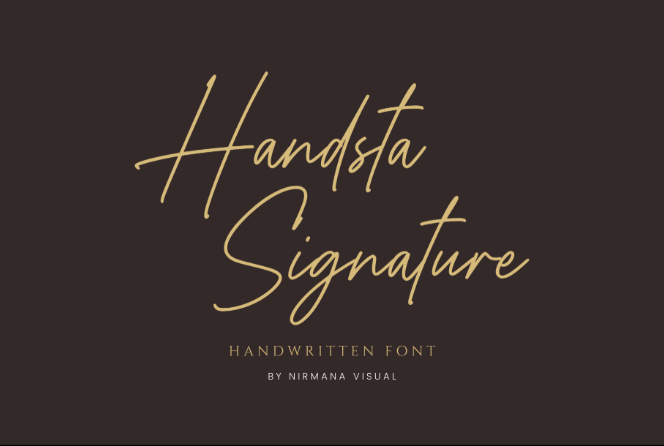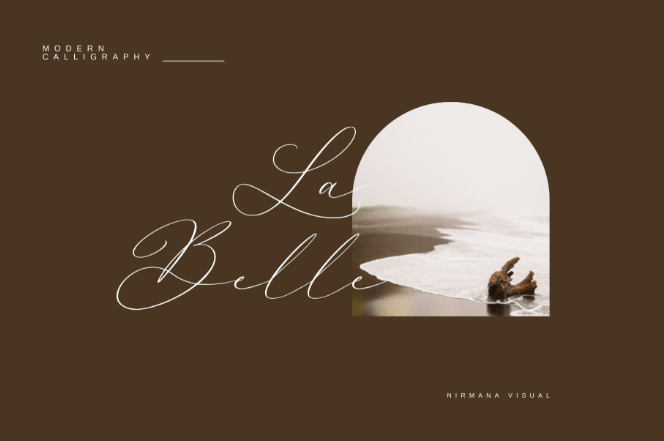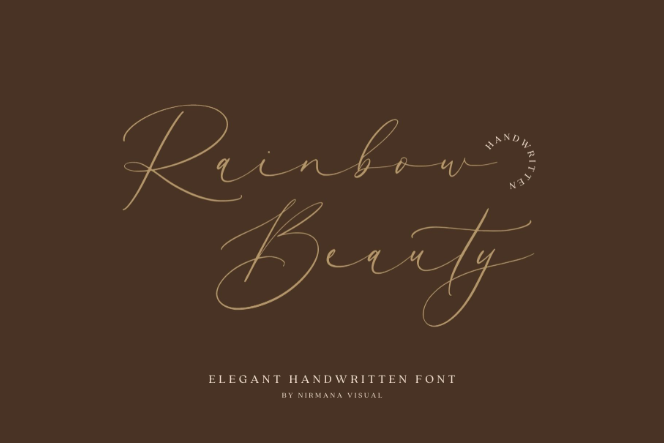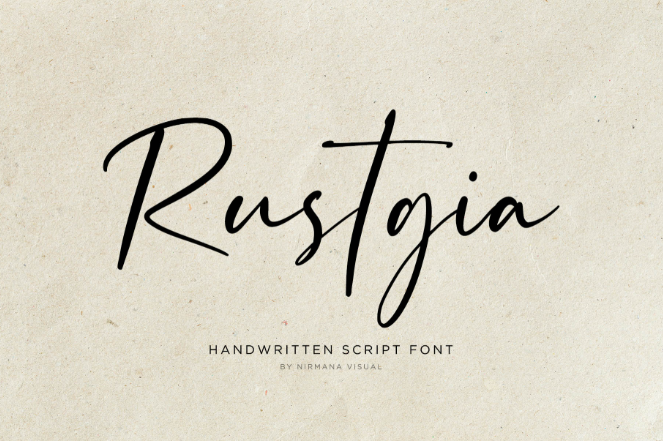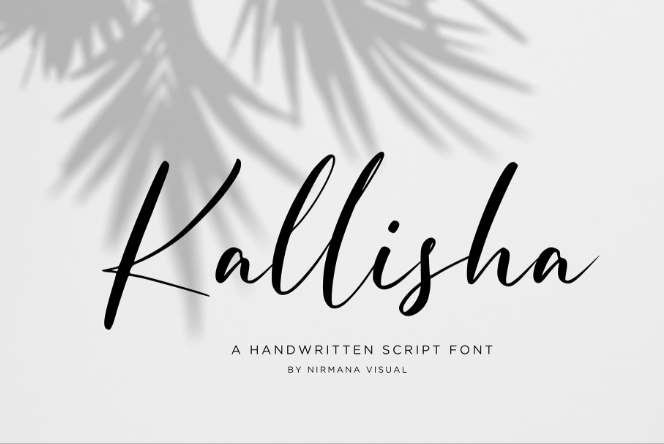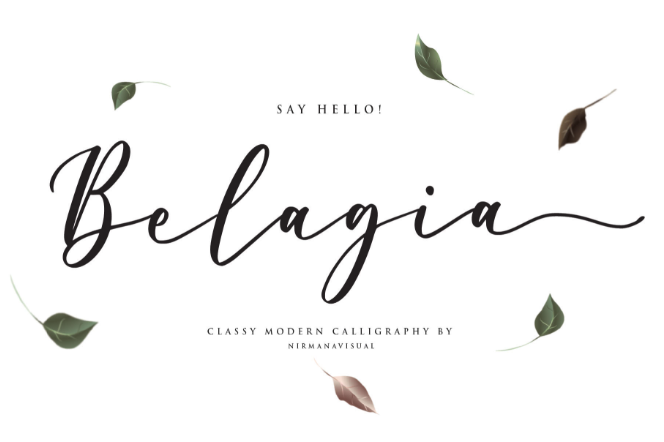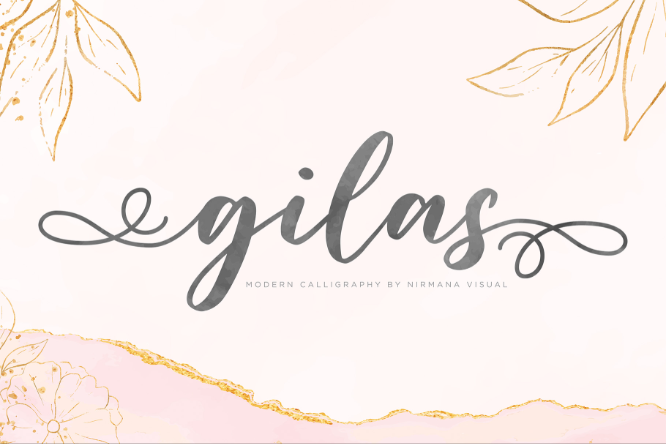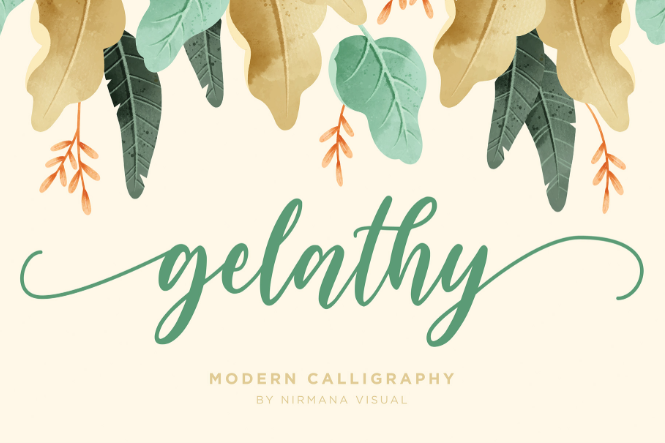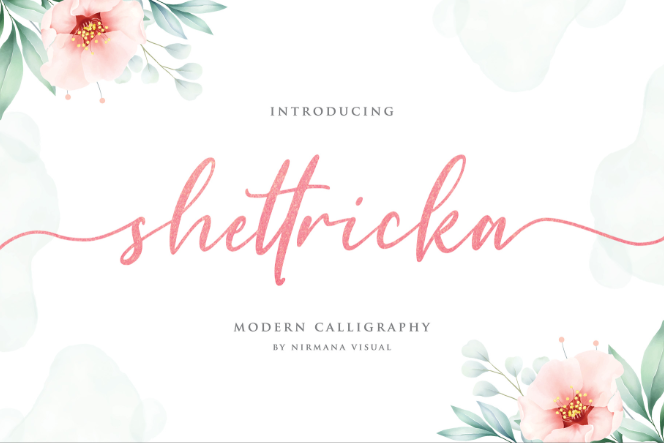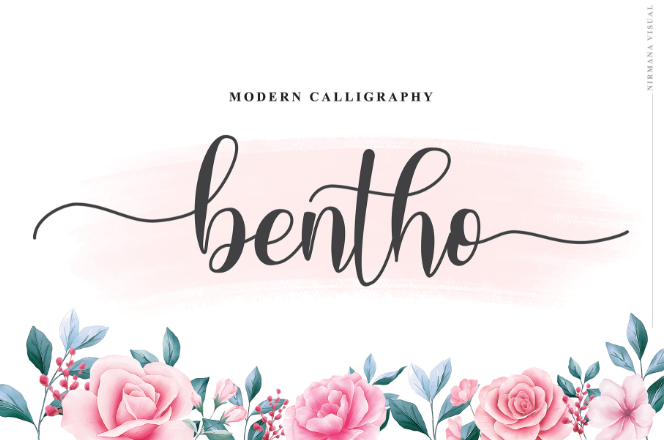
Top 25 Best Script Fonts Special for Wedding Projects
Best script fonts are essential tools for creatives who want to make an emotional impact with typography. Ideal for any occasion, especially for wedding vibes, these fonts allow you to convey warmth, sophistication, and elegance.
Best Script Fonts for Your Wedding Designs
Script fonts have their roots in the rich traditions of calligraphy and hand-lettering, adding timeless charm with contemporary aesthetics. Let’s find out the best of these flowy lines!
1. Retro Signature
The monoline, neon light aesthetics is a staple of quaint vibes, but Retro Signature elevates it with a more calming touch, particularly unique for your wedding endeavours.
2. Gettins
Gettins is among the best modern script fonts that accentuate the immaculate flow for wedding calligraphy. The dreamy and spacious letters from Gettins also highlight a wholesome atmosphere.
3. Beauty Handwriting
Beauty Handwriting excels in showcasing its precise, natural letterforms. In a wedding context, Beauty Handwriting also depicts luxurious visuals.
4. Gatkins
Among our best script fonts lineup, Gatkins exemplifies the elegant and serene aesthetics. Gatkins can highlight your overall design without being overwhelming.
5. Austrisa
If you want a stunning script typeface with the power to control its slant, use Austrisa. Austrisa cleverly blends modern calligraphy with artistic signature looks.
6. The Wedding Signature
As the name suggests, The Wedding Signature is the go-to font for wedding designs. The flavourful The Wedding Signature excels at beautifying your name.
7. Royal Wedding
Our best handwritten script fonts include Royal Wedding. The Royal Wedding font showcases the organic, handcrafted letterforms with an apparent marker look.
8. Smooth Loving
Smooth Loving displays the perfect combination of delicate typography and ornate swashes. Additionally, Smooth Loving’s look exudes a romantic and eternal style.
9. Begthen
Begthen is the embodiment of a light and lithe script font. The flowy, thin strokes of Begthen create a dreamy and romantic impression.
10. Handsta Signature
Handsta Signature depicts the simple and clean fashion in a script typeface. Plus, Handsta Signature’s handwritten look made it more natural.
11. La Belle Signature
La Belle Signature focuses on creating the best romantic vibes with its spacious and luxurious look. With La Belle Signature, you can instantly bring a premium taste.
12. Rainbow Beauty
Rainbow Beauty can coexist with other, bolder typefaces. The airy and chic look of Rainbow Beauty allows multiple typefaces to merge, creating a dynamic design.
13. Airthay
Aithay is another of our modern calligraphy, script fonts. This font has the typical fountain pen look, utilizing floral style and dynamic thickness on every stroke.
14. Rustgia
Unlike our previous typefaces, Rustgia embraces a handwritten script with brush-like strokes. Rustgia’s unique approach creates a fresh look among other wedding designs.
15. Kallisha
Kallisha deserves to be one of the best script fonts with deliberate and striking strokes. Using Kalisha as your wedding font gives you the leisure to experiment with vibrant colors.
16. Belagia
Along with its modern calligraphy look, Belagia also leans into the classy and chic styles. With its captivating beauty, Belagia also adds dramatic flair in every stroke.
17. Gilas
If you want bolder letterforms, use Gilas. Gilas’s ribbon-like letters, combined with light swashes, create a dynamic, flowing dance on your wedding day.
18. Gelathy
Gelathy’s uniqueness is in its kerning with more condensed visuals, allowing you to fit longer texts. Its uniform look also adds to Gelathy’s modern approach.
19. Shettricka
Accentuating its modern design, Shettricka elevates the category with textured strokes. Shettricka is among the best script handwriting fonts, even cutting letter connections for legibility.
20. Bentho